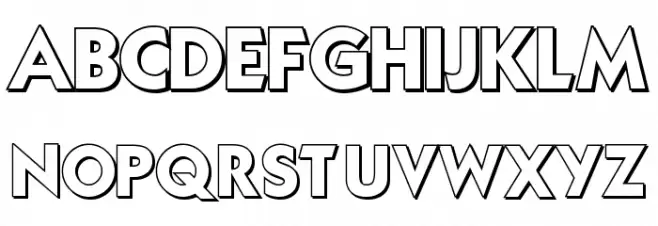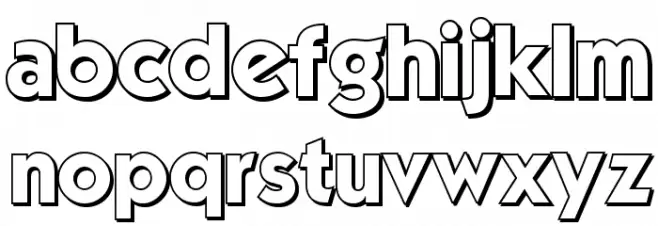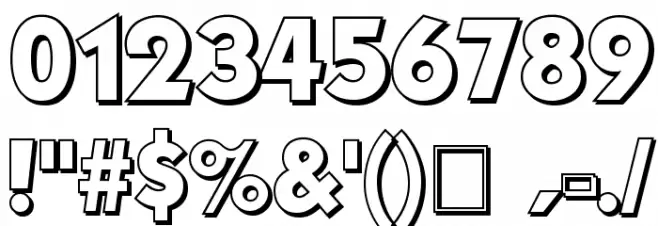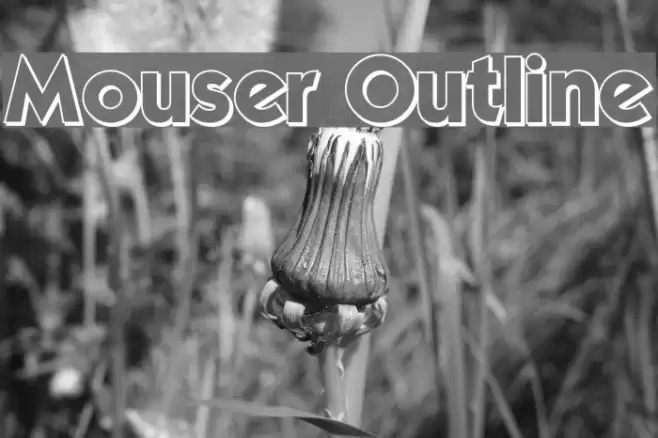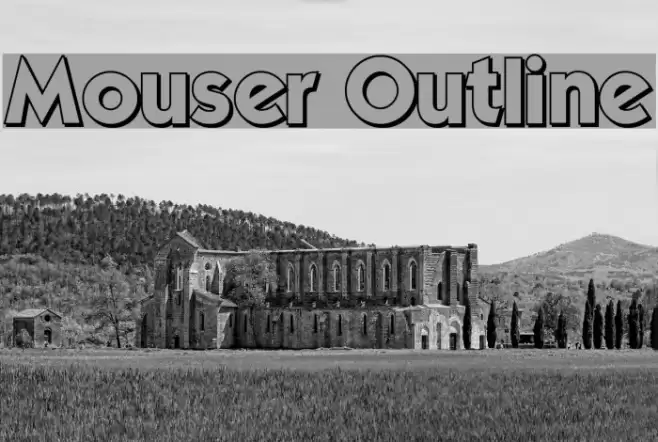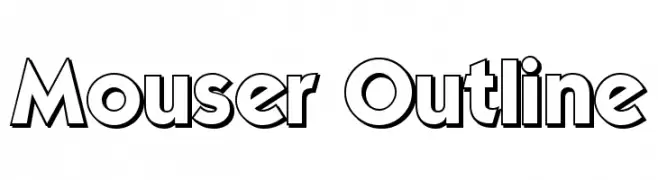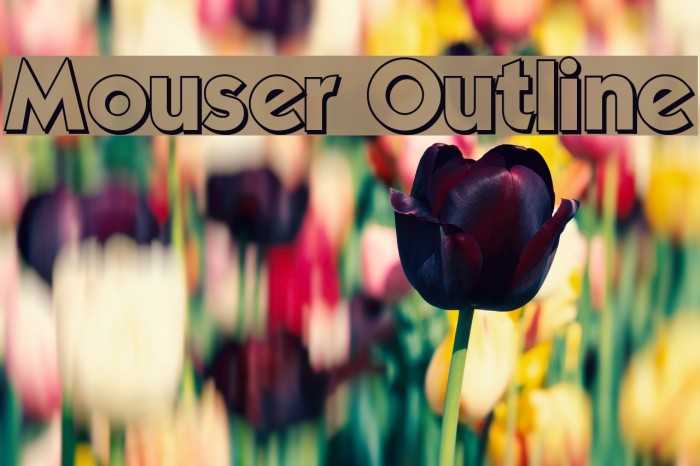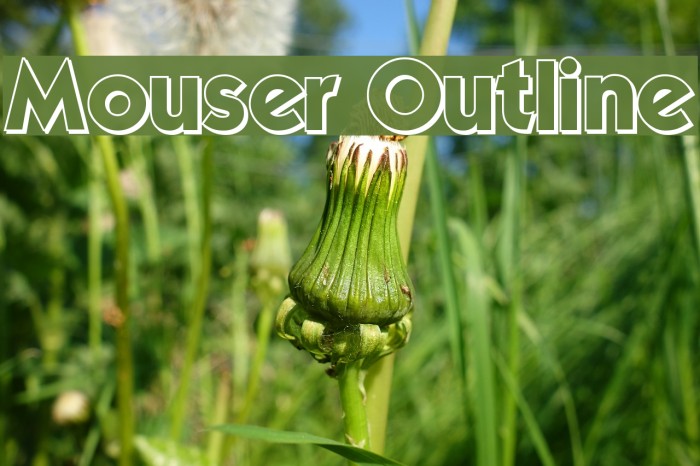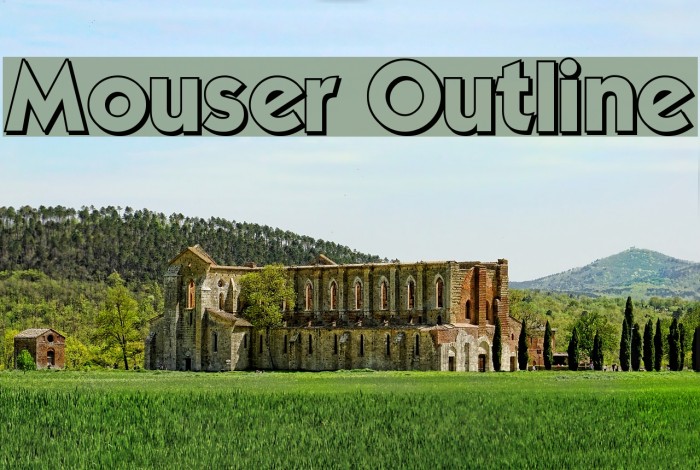
Mouser Outline
This font features a bold, geometric outline style that gives it a striking and modern appearance. The characters are uppercase and lowercase letters, numbers, and a variety of special symbols, all designed with a consistent outline thickness that creates a cohesive look. The font's clean lines and sharp angles make it highly legible, while the outlined style adds a unique flair that can capture attention. The spacing between characters is balanced, ensuring readability without compromising the decorative aspect. This font is versatile, suitable for both digital and print media, and can be used to make a statement in any design project.
A bold, geometric outline font with clean lines and sharp angles.
- Proposed Projects: Ideal for headlines, posters, logos, and branding materials where a modern and eye-catching style is desired.
- Use Case: Headlines, Logos, Posters